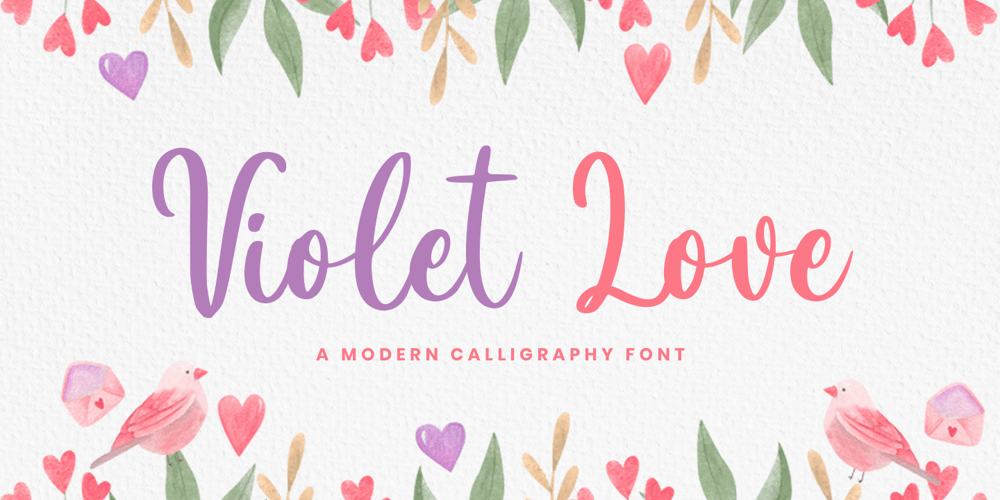
Violet Love Font Family was designed by Novia Himatunnisa and published by Nissa Nana. Violet Love contains 1 styles and family package options. Violet Love is a lovely, refreshing script font. No matter the topic, this font will be an incredibly asset to your fonts’ library, as it has the potential to elevate any creation.